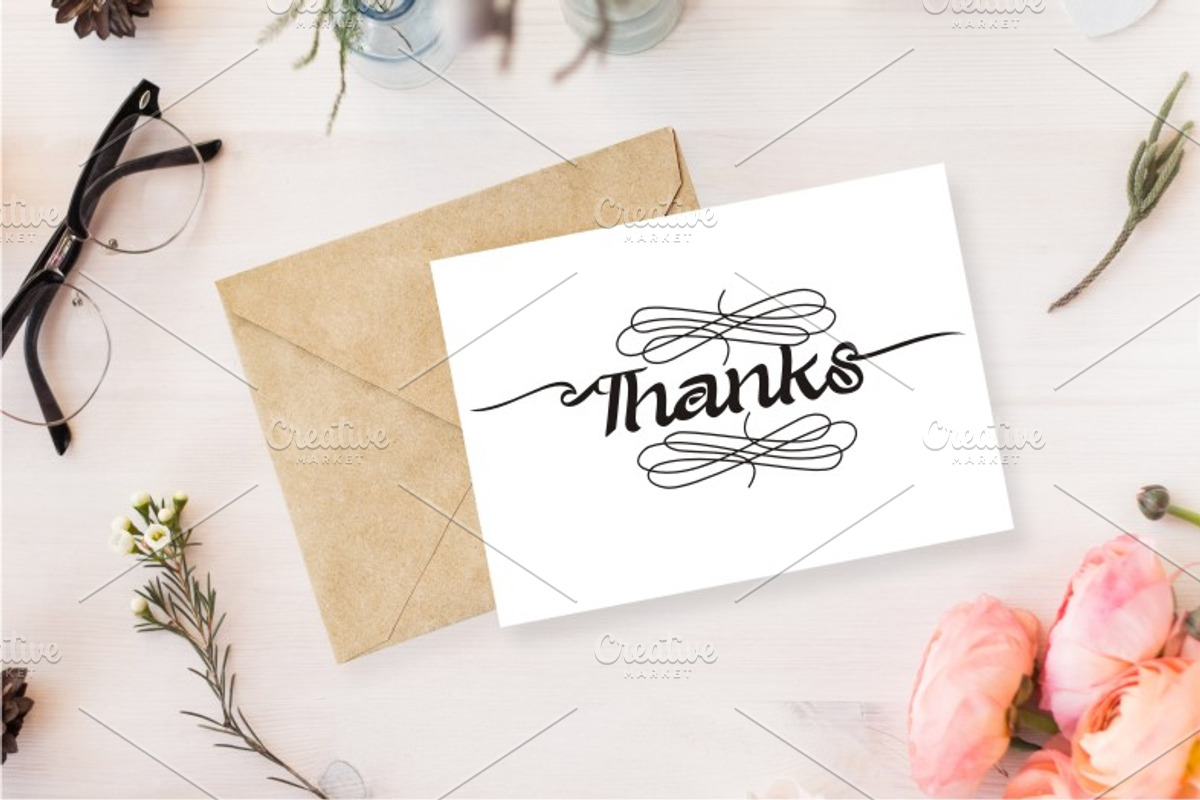
SERATAN
Seratan is modern calligraphy which is combining the style of classic calligraphy with an modern style, with Seratan inspired by sign painted styles it's very eye catchy and beautifull looks. Seratan is perfect to using for Logo, Latterhead, Invitation, Poster, Lables and many more.
- Swoosh